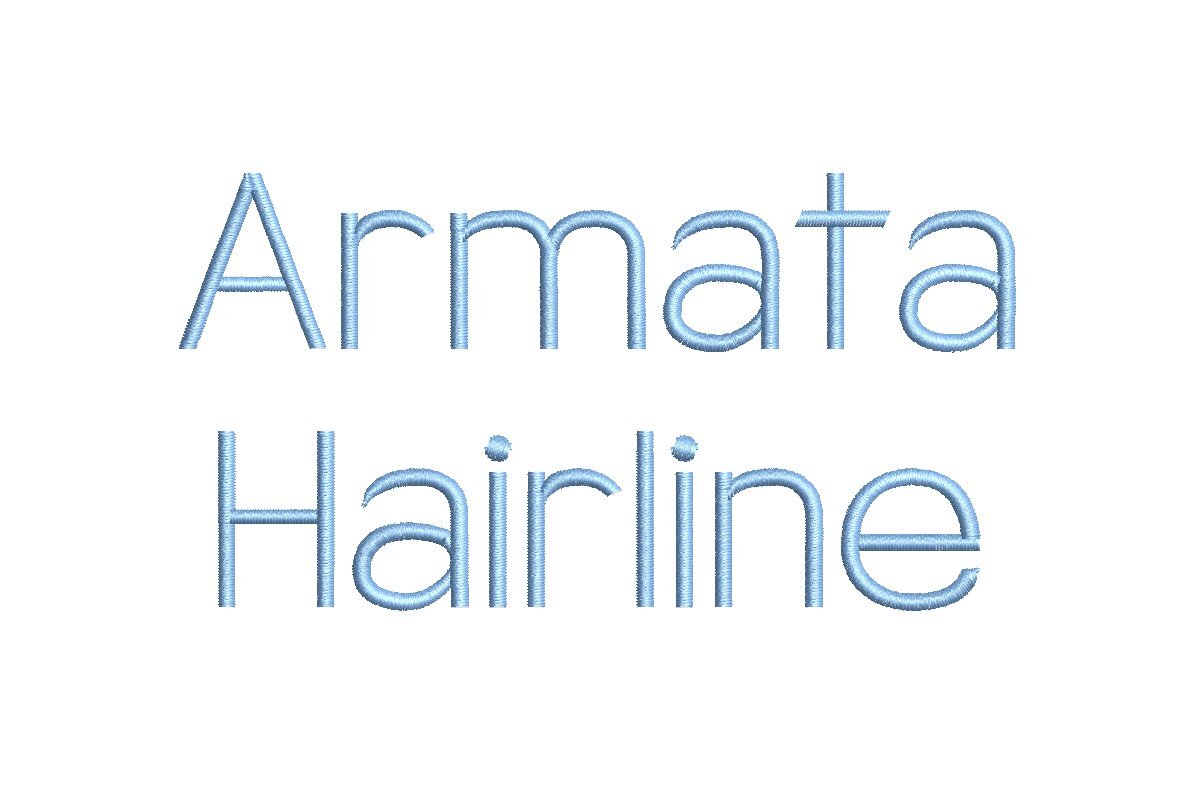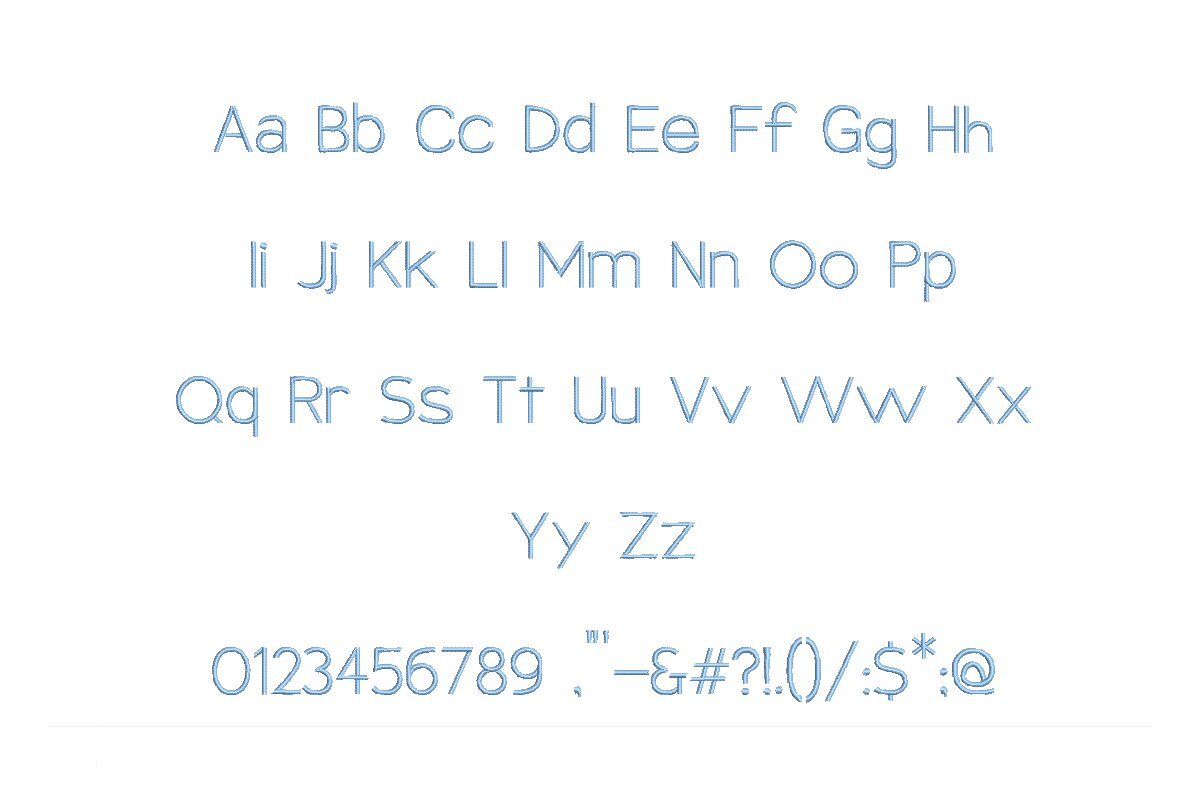
Introducing Armata Hairline ESA Font: Your Embroidery Elegance Solution! Perfectly tailored for Wilcom Studio e4.5.6 and Hatch 3 versions and beyond, this font defines sophistication in embroidery. Elevate your designs with Armata's delicate, hairline strokes and timeless appeal. Whether you're a seasoned pro or an enthusiast, Armata Hairline ESA unlocks boundless creative opportunities. Seamlessly compatible with the latest software, it streamlines integration, saving you valuable time. Every stitch embodies precision and perfection, making your embroidery projects stand out. Don't miss the chance to add Armata Hairline ESA Font to your toolkit. Start now and witness your designs transform into elegant masterpieces!